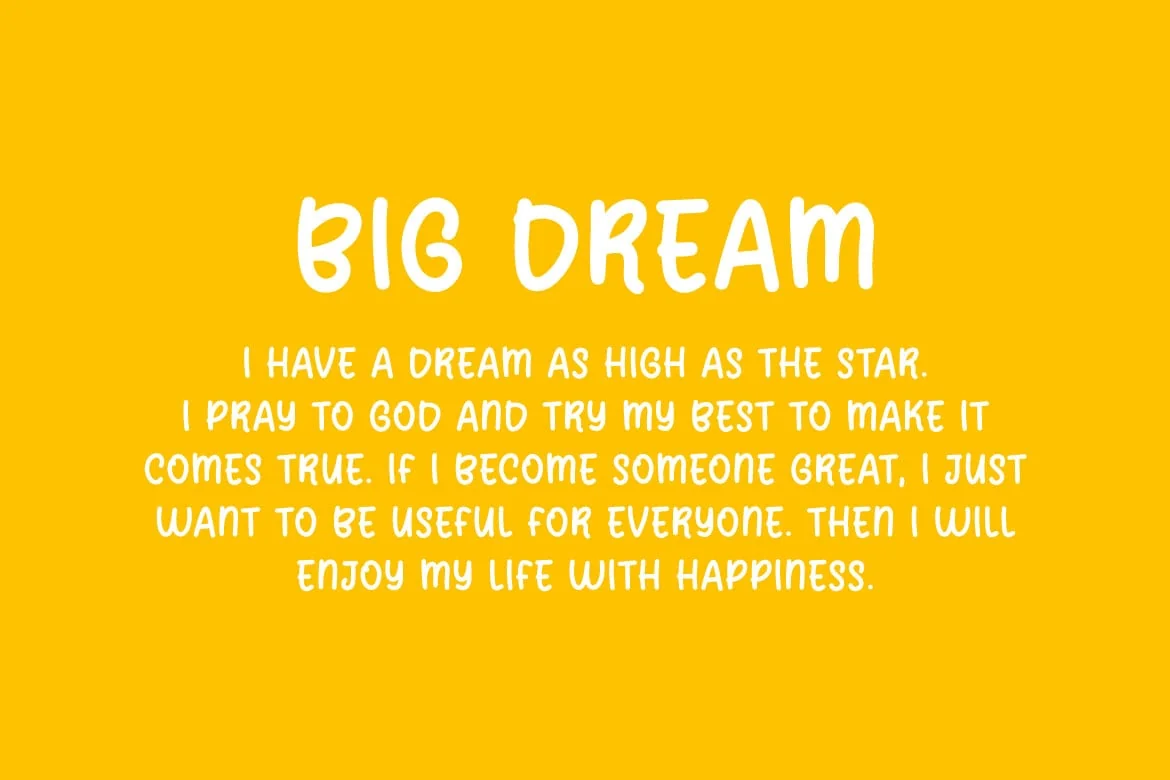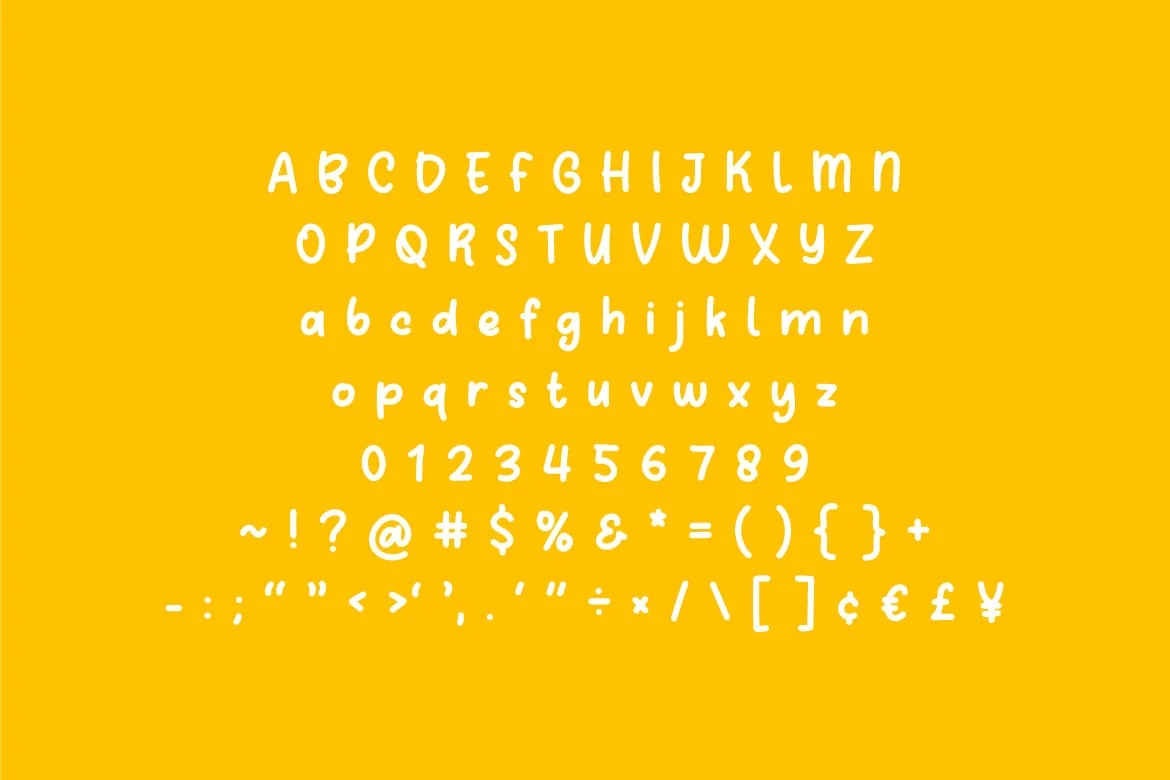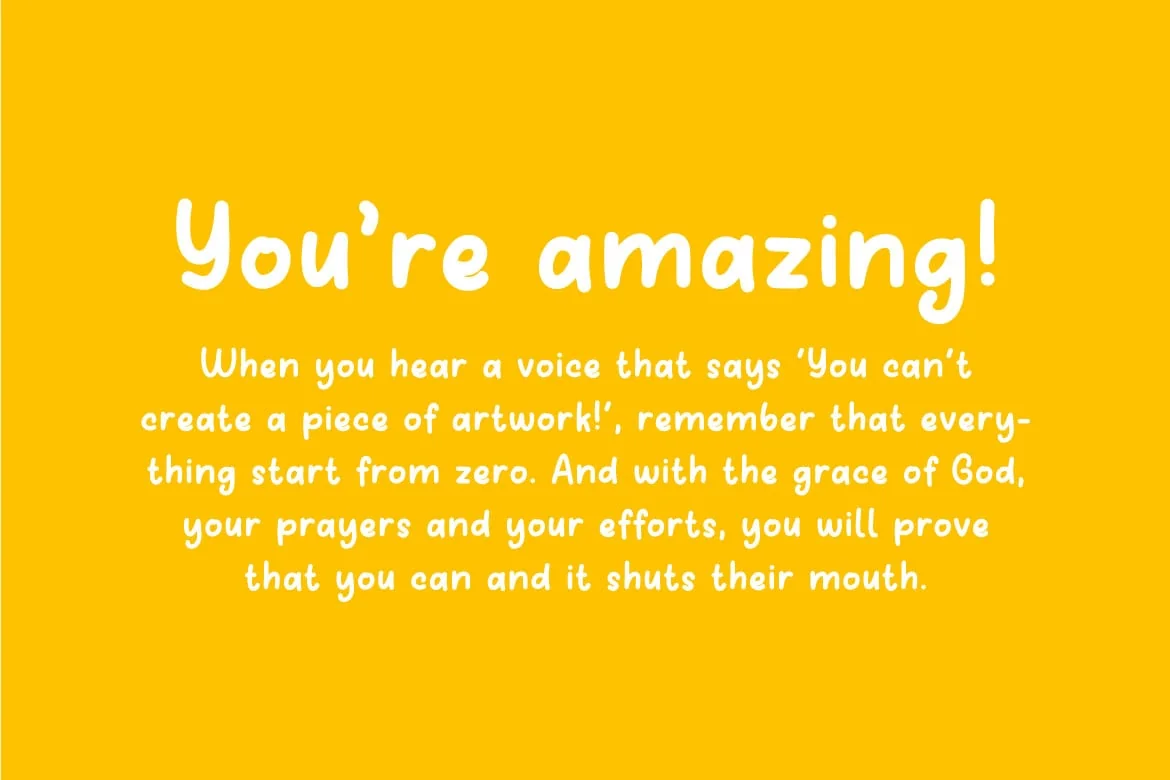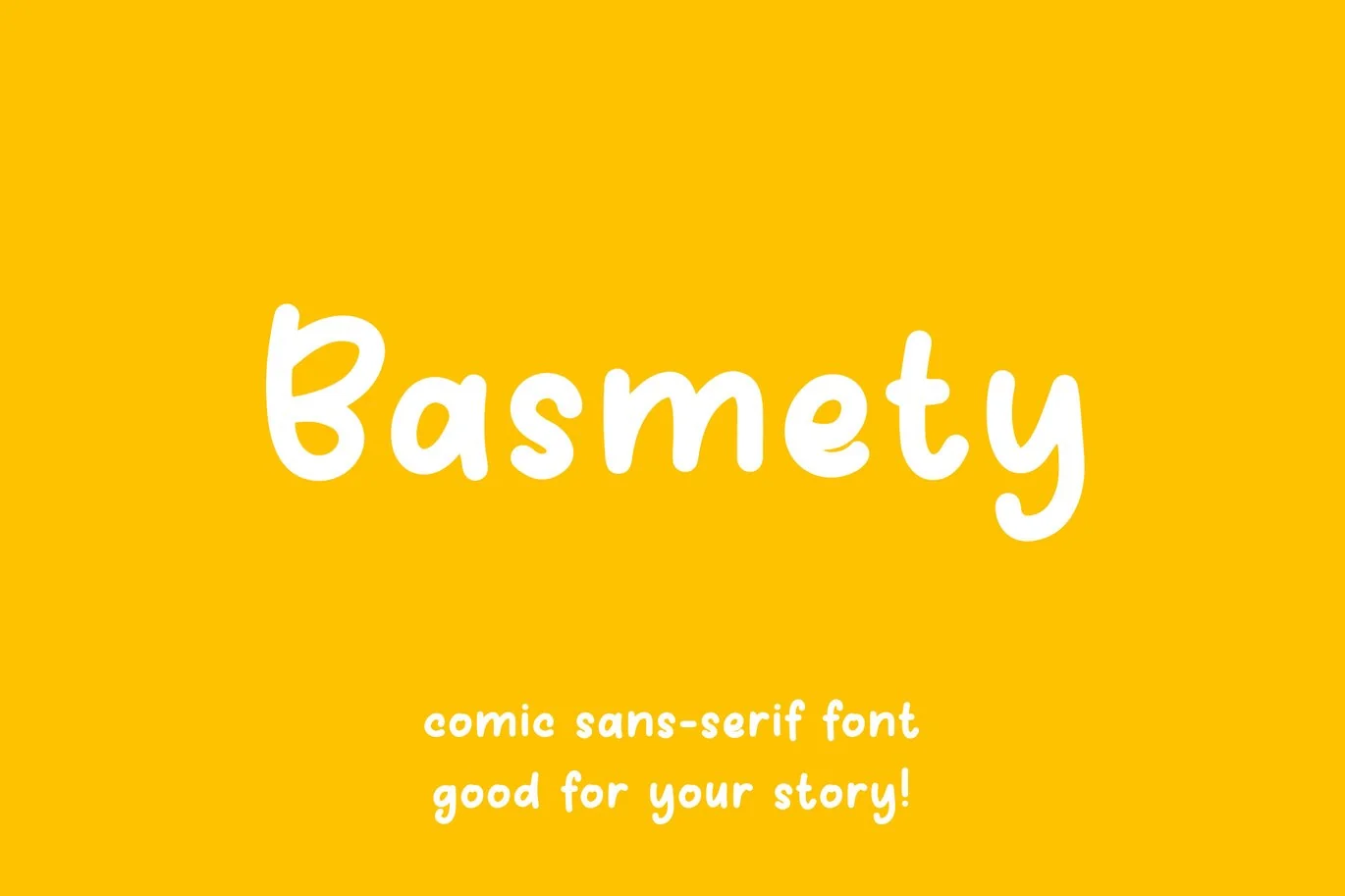
Basmety – Round Comic Fun Font
Hello! BASMETY is a comic display font with fun and playful style. This font brings a happiness in each word.
Basmety can be used in any works such as comic book, school, kindergarten, story book, kids’ stuff brand, children book, poster, advertisement, social media content, logo and many more.